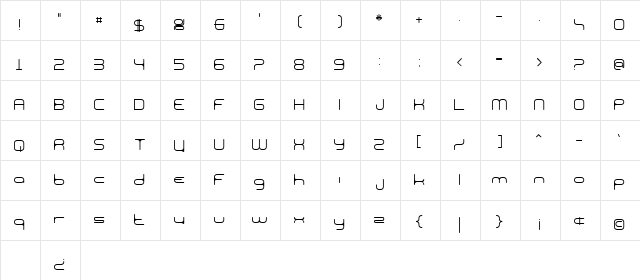
BN Expoo Regular
Design Context for BN Expoo Typeface
BN Expoo is a composed and adaptable typeface that performs quietly and consistently across a wide range of design contexts.
Pro Tip: Pair BN Expoo with a font of contrasting weight or personality to build a more expressive typographic hierarchy.